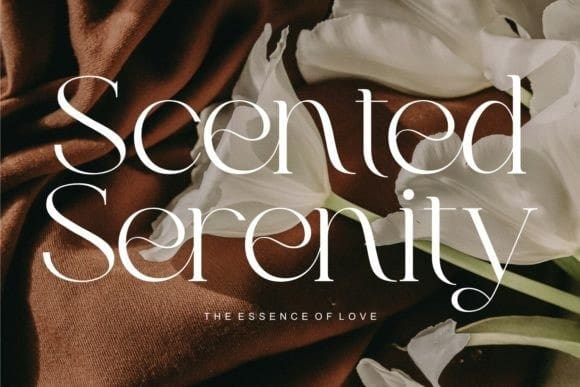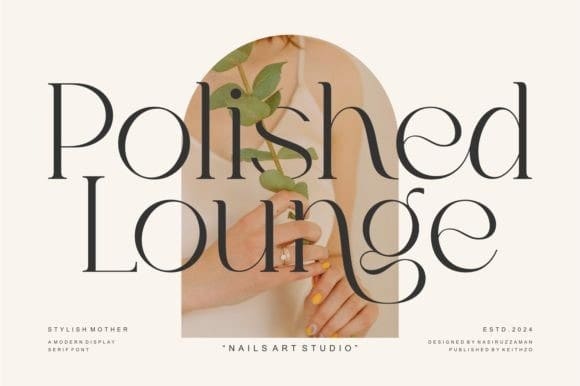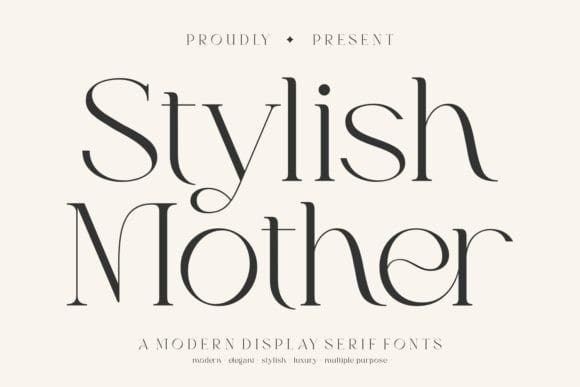
Stylish Mother Font
Stylish Mother Font is a delightful blend of modern elegance with an irresistible touch of romance. This suave display serif font brings a unique touch of luxury, artfully metamorphosing romantic vibes into chic lettering. Excellently suited for a bevy of projects, Stylish Mother Font is versatile enough to embellish everything from logos to crafts, posters to books, making every branding expression unique.